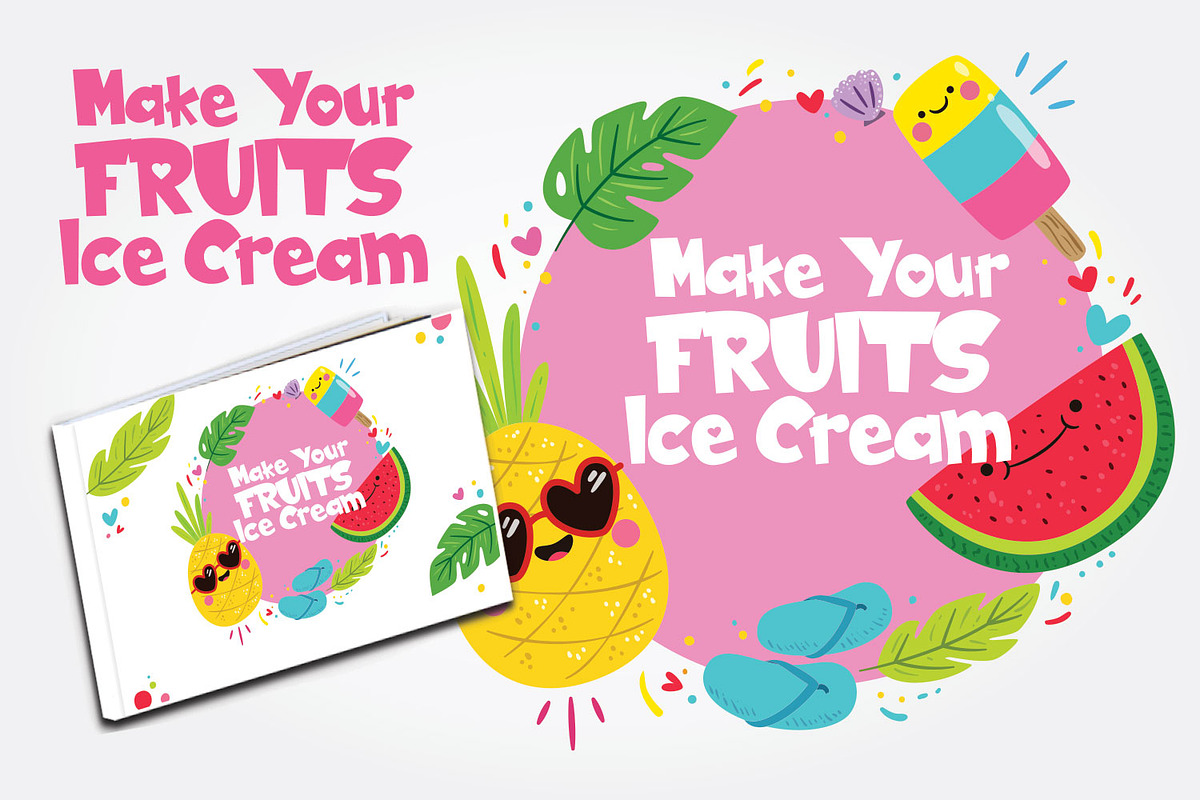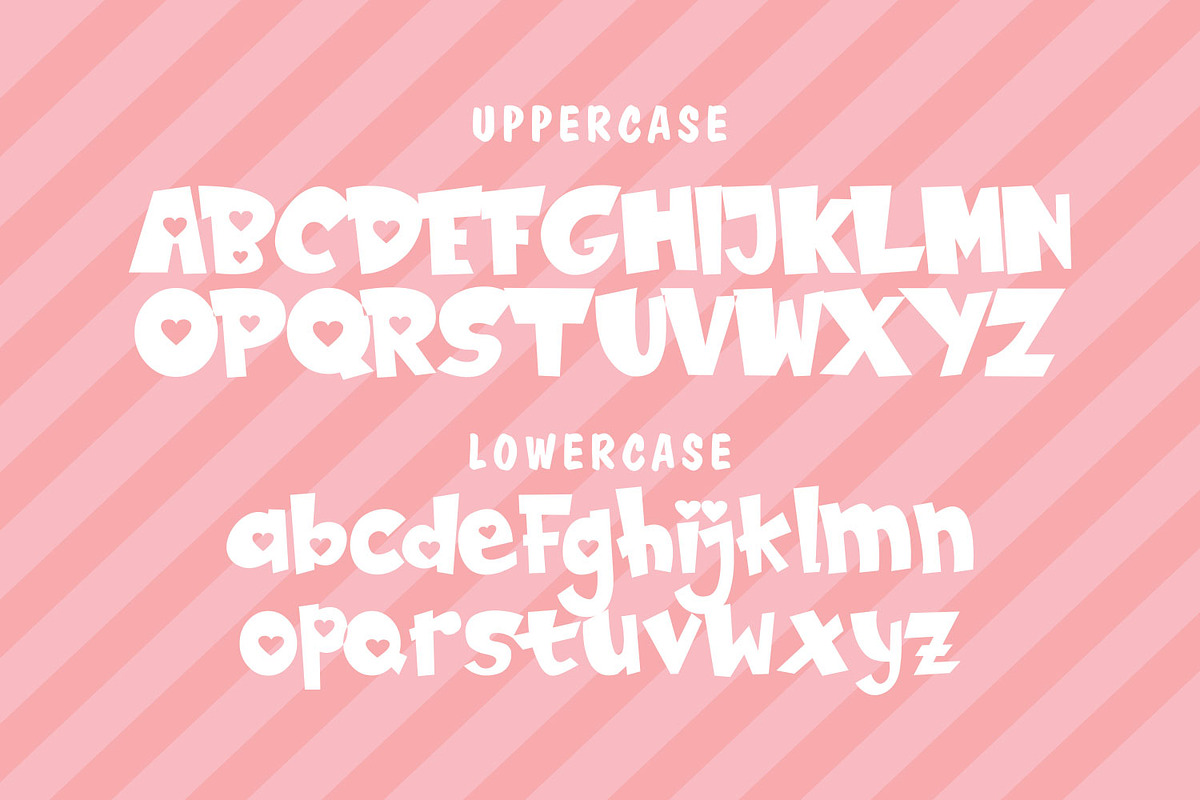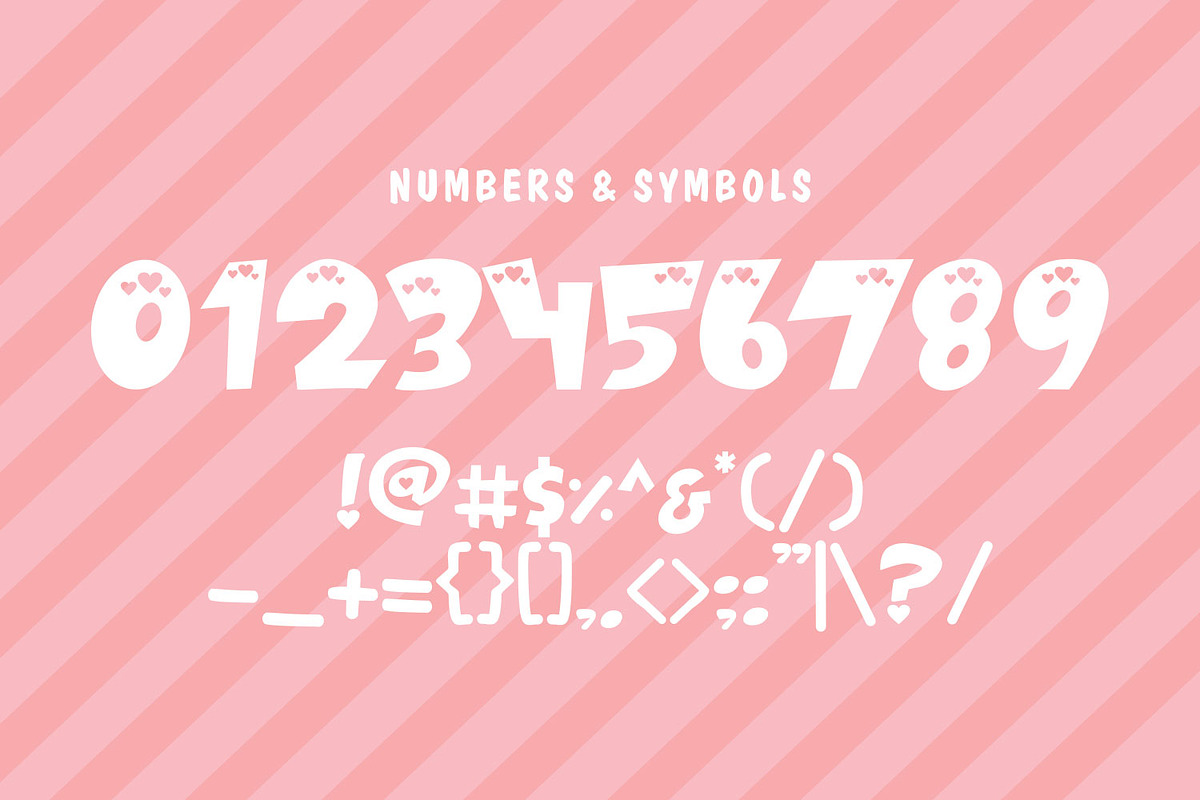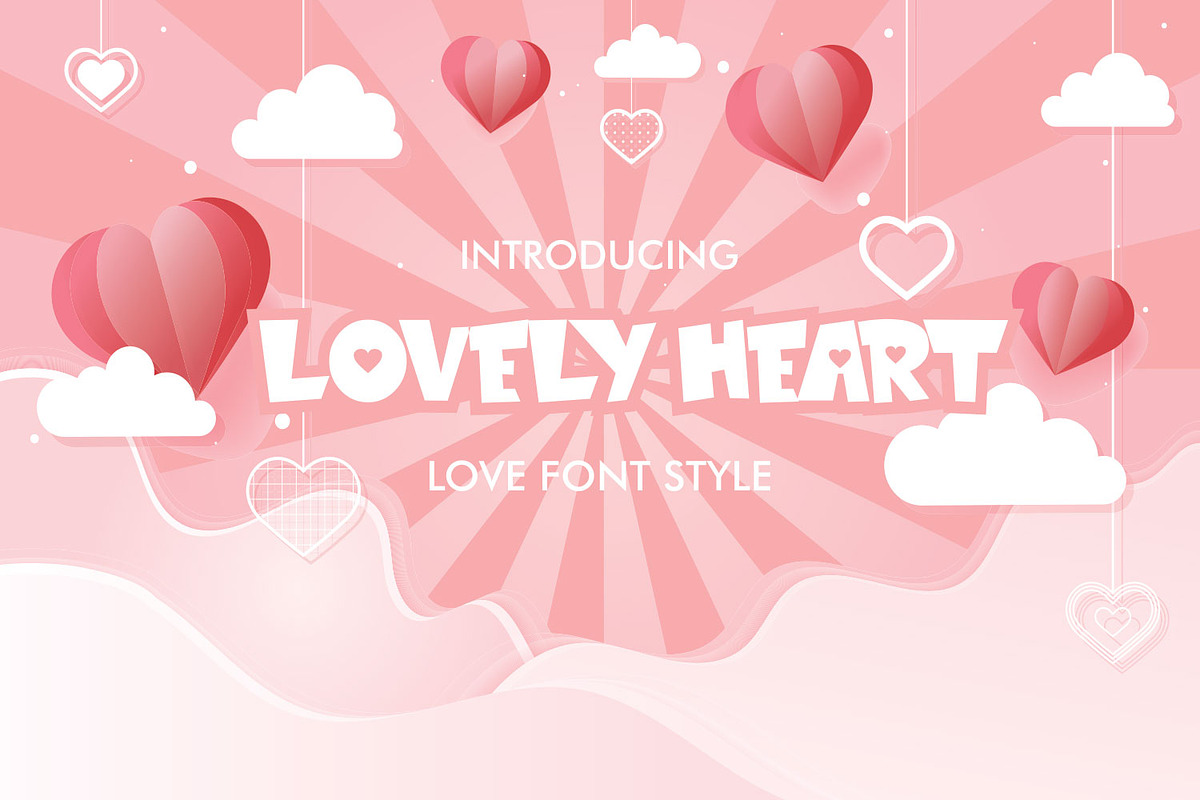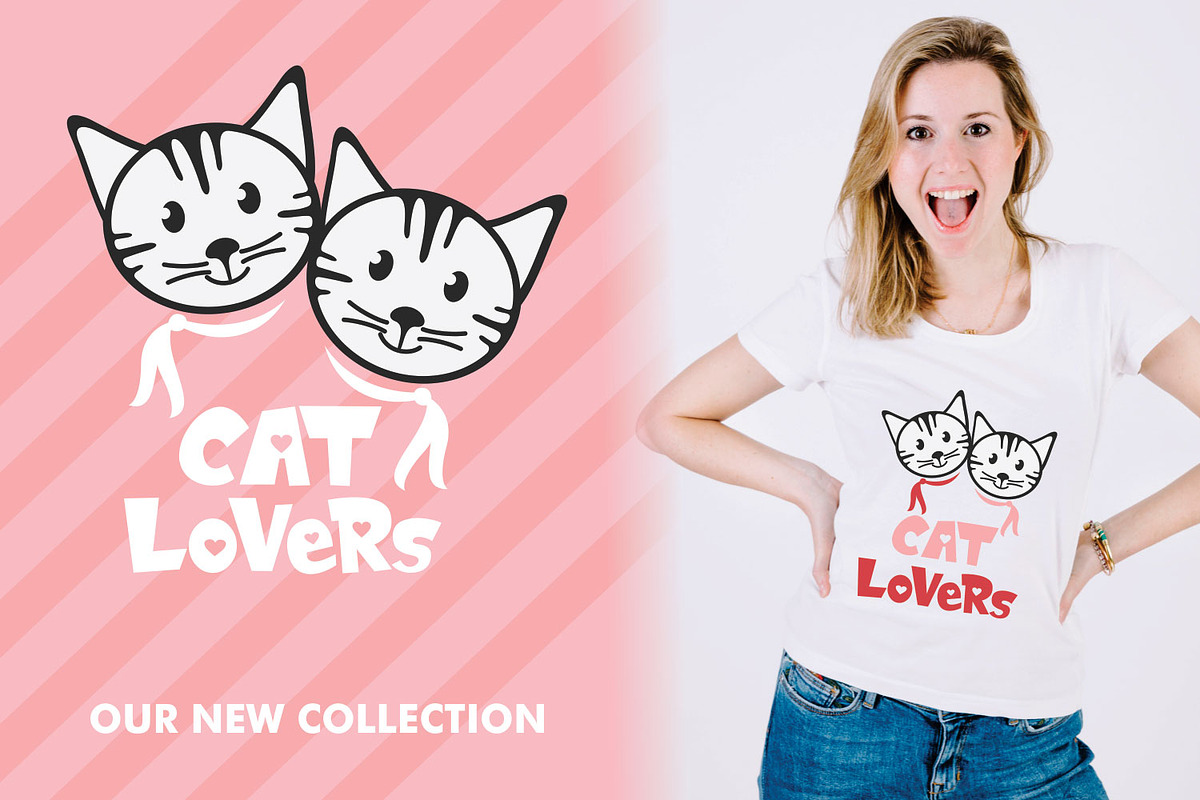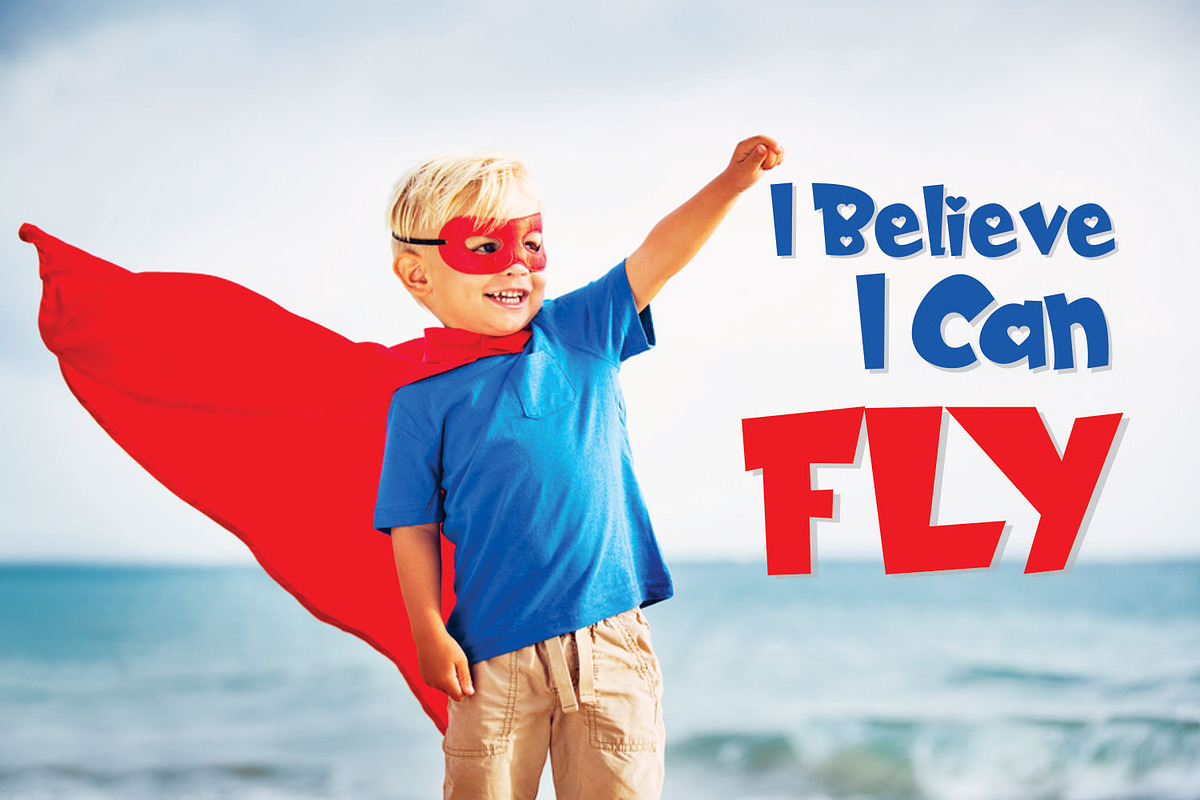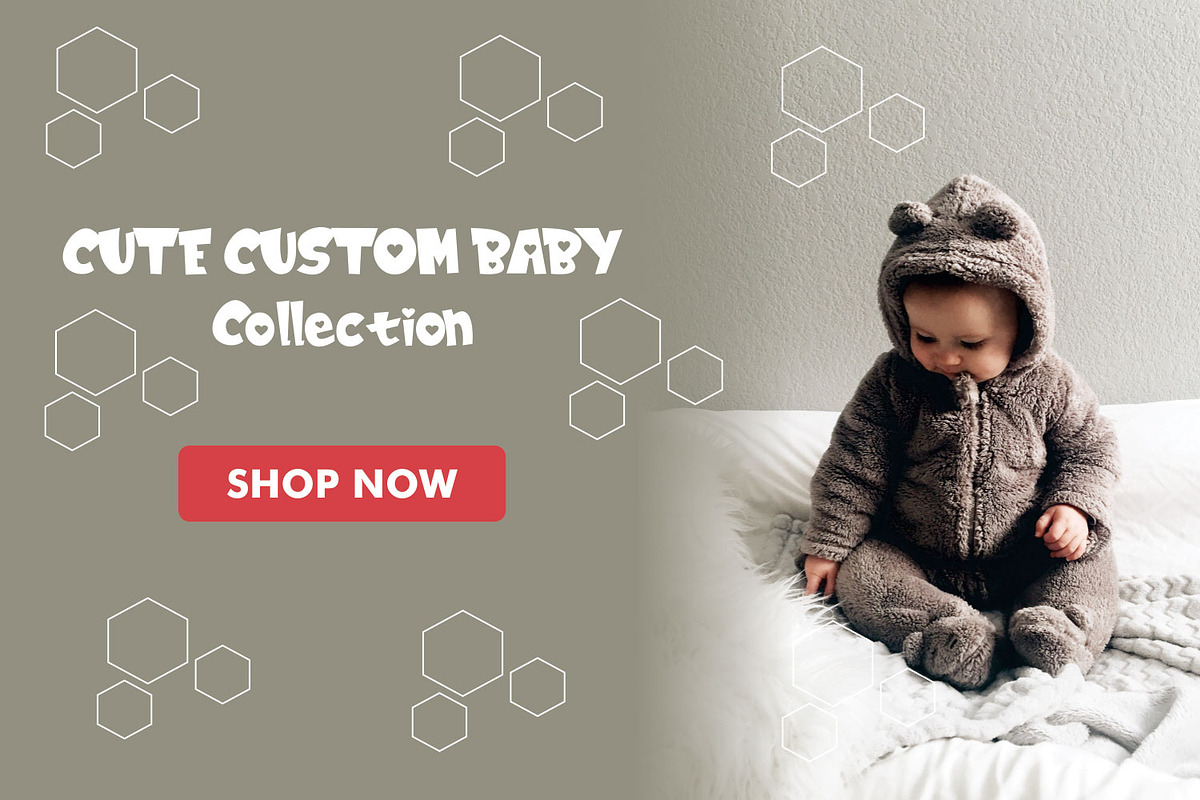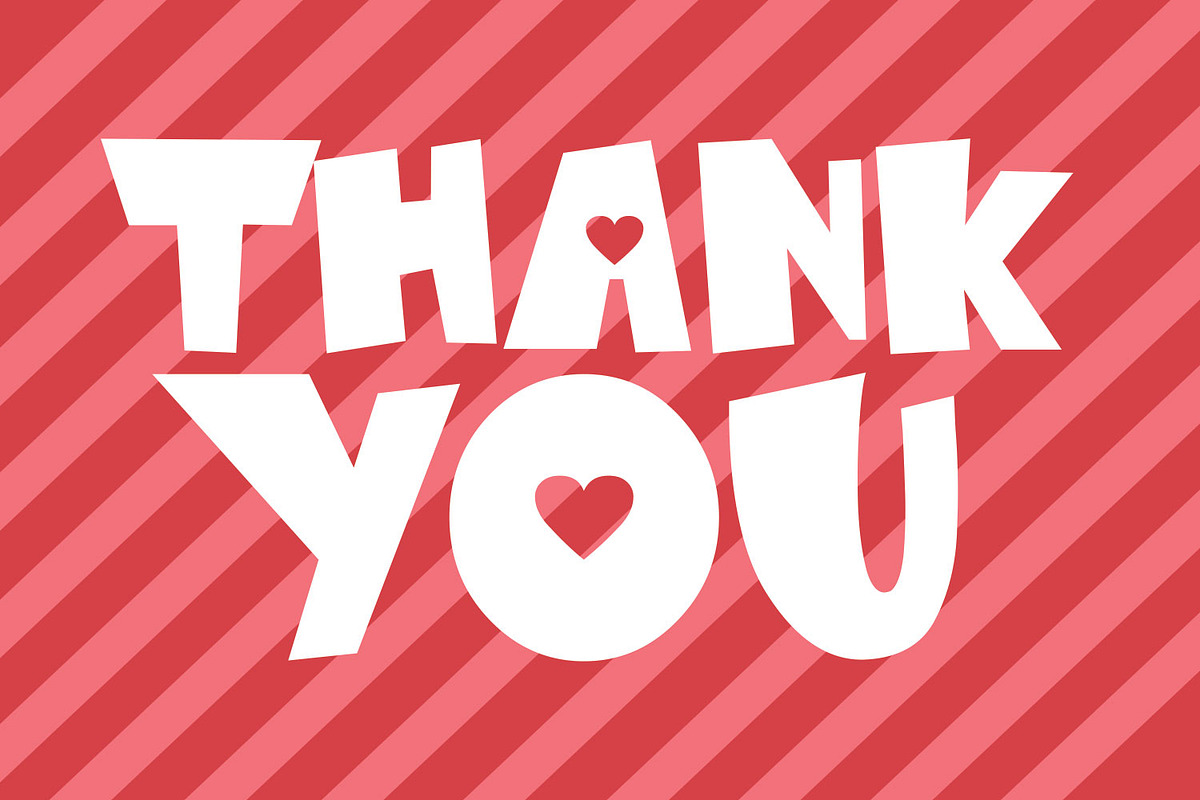
Lovely Heart
The Lovely Heart is an lovely display font. It includes amazing hearts which will give your design a cute and playful touch.It can be used for t-shirts, quotes, posters, logos, magazines covers, and even large-scale artwork. Includes: Lovely Heart (OTF, TTF)